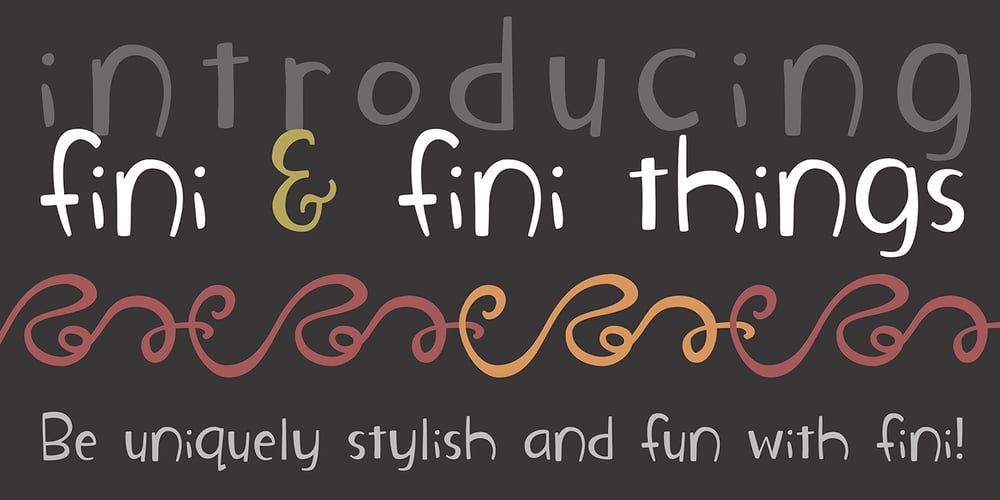
Fini Font Family was designed by Amy Dietrich and published by Atlantic Fonts. Fini contains 2 styles and family package options. Fini. Done. You’ve just discovered an infinitely useful font that polishes things with youthful and stylish vigor. Fini provides playfulness with double letter ligatures with a twist of friendly sophistication. Fini Things, also designed by illustrator and font designer, Amy Dietrich, is a decorative collection of 26 loopy, spotty repeating border designs and kid oriented icons (like a pea coat, owl hat, hoodie, rubber duckie etc, plus a coffee cup – for mom and dad). Fini Things coordinates with Fini font, and in fact, works very nicely with Merci, and other Atlantic Fonts.